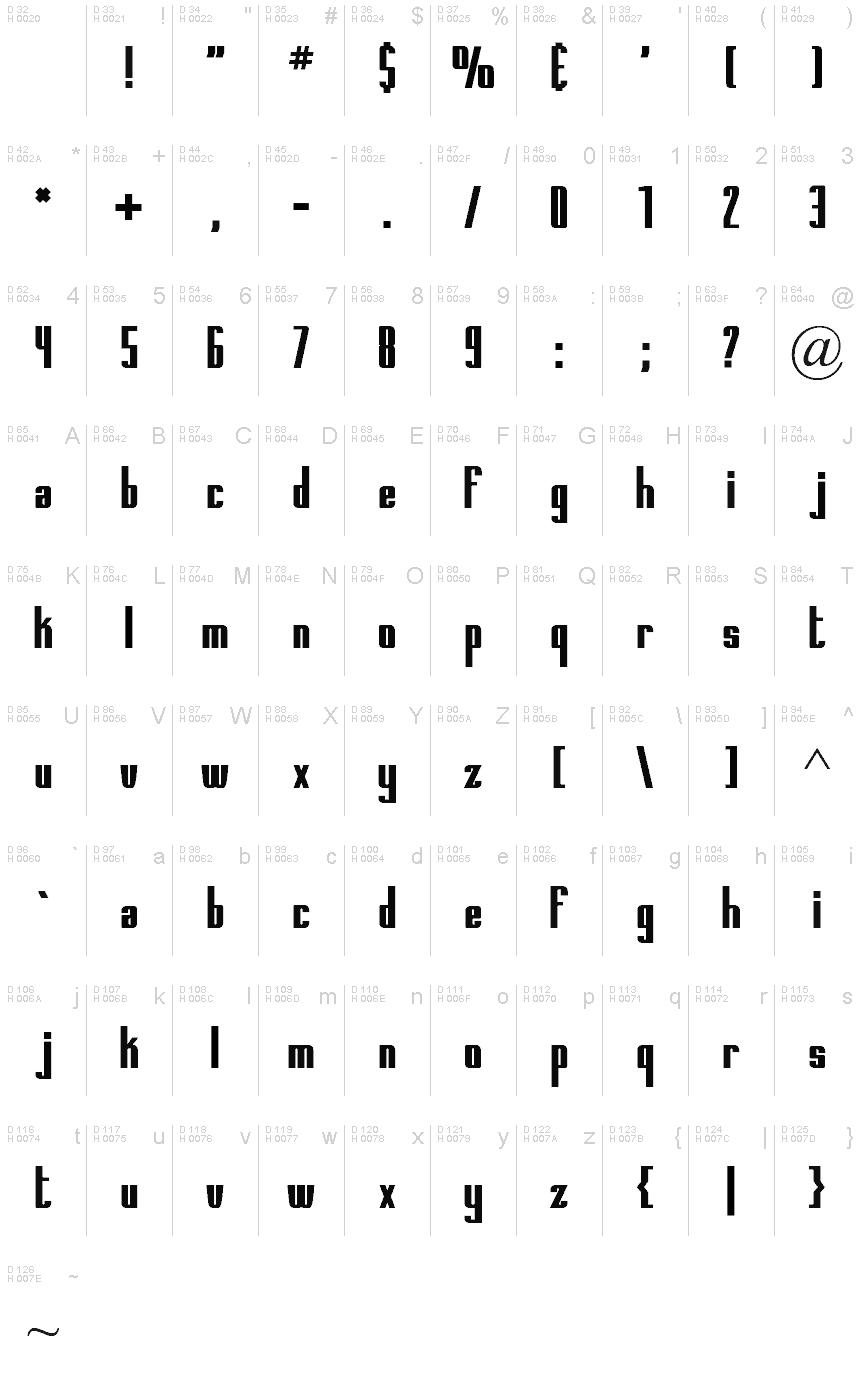
Printed Circuit Board
"Printed Circuit Board" is a captivating font that exudes a bold, technological flair. Designed by JLH Fonts, this display typeface boasts a condensed, techno-inspired style that commands attention. The sharp, angular letterforms and clean lines convey a sense of precision and efficiency, making it an ideal choice for a range of applications, from product packaging and branding to digital interfaces and industrial design.
This font's distinct aesthetic lends itself well to projects that require a strong, modern visual identity, seamlessly blending form and function to create an impactful and memorable impression.